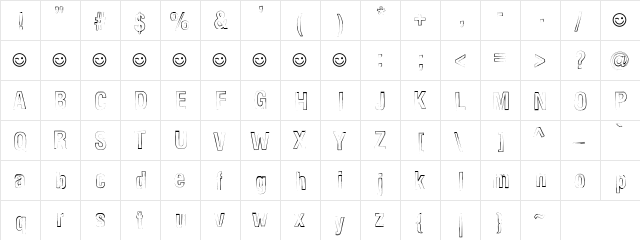
Newside FP Outline Regular
Design Context for Newside FP Outline Typeface
Newside FP Outline is built around its visual character rather than neutral utility — its distinctive forms are designed to make an impression at display sizes.
Font Pairing: Pair with a clean neutral sans-serif for body copy to let Newside FP Outline's character lead without overwhelming the composition.
Pro Tip: Use Newside FP Outline exclusively at display sizes — it was designed to be seen, not read at length. Let a neutral companion handle body copy.